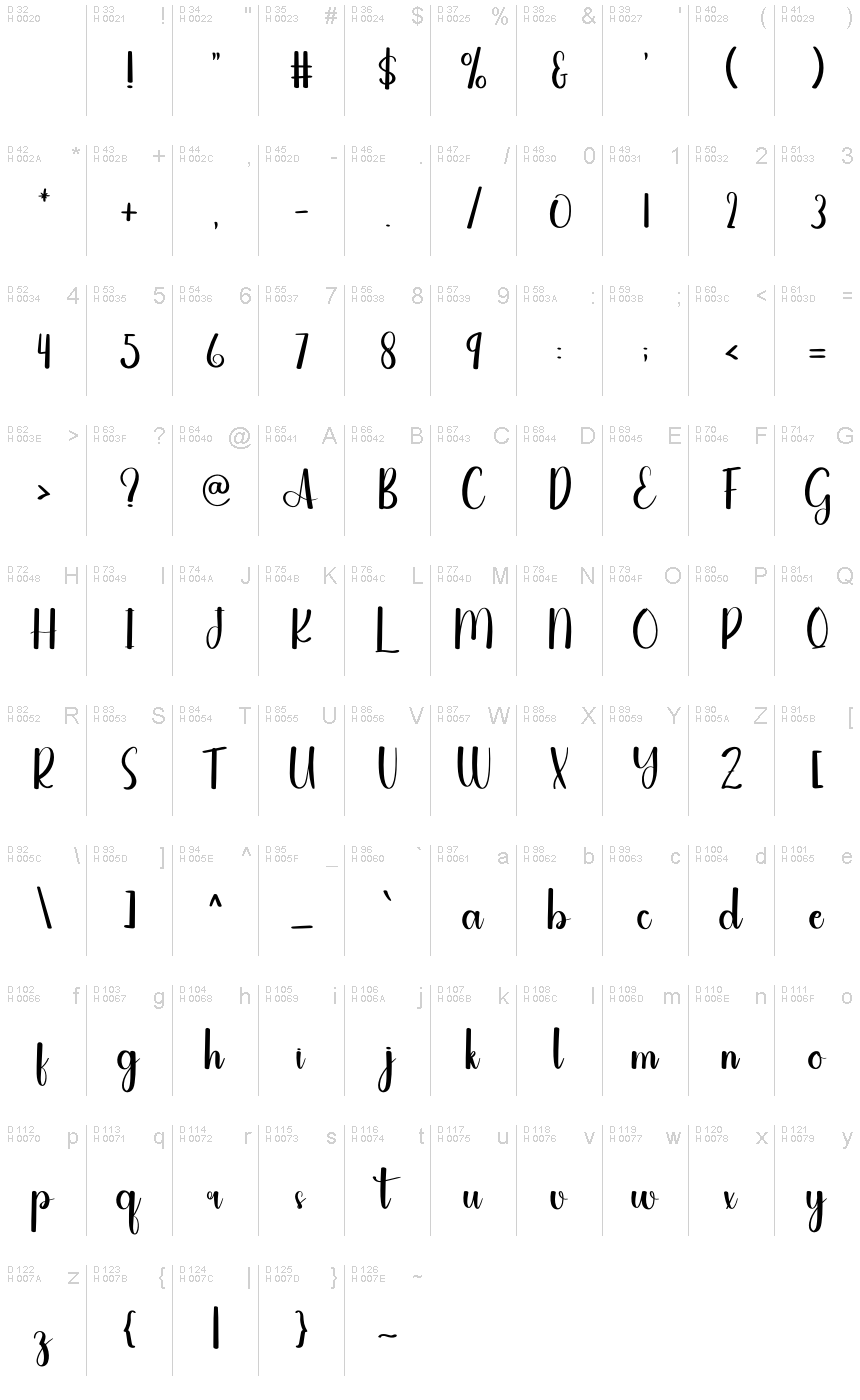
Pinky Latte
Pinky Latte font, crafted by One Design, captivates with its handwritten charm and playful elegance. This condensed font breathes a whimsical yet sophisticated air into any project, making it ideal for personalizing invitations, crafting striking logos, or adding personality to social media graphics. Its unique style effortlessly bridges a casual ambiance with artistic flair. The Pinky Latte font is not just eye-catching; it's also highly versatile for designers seeking a free font that stands out in digital or print media.